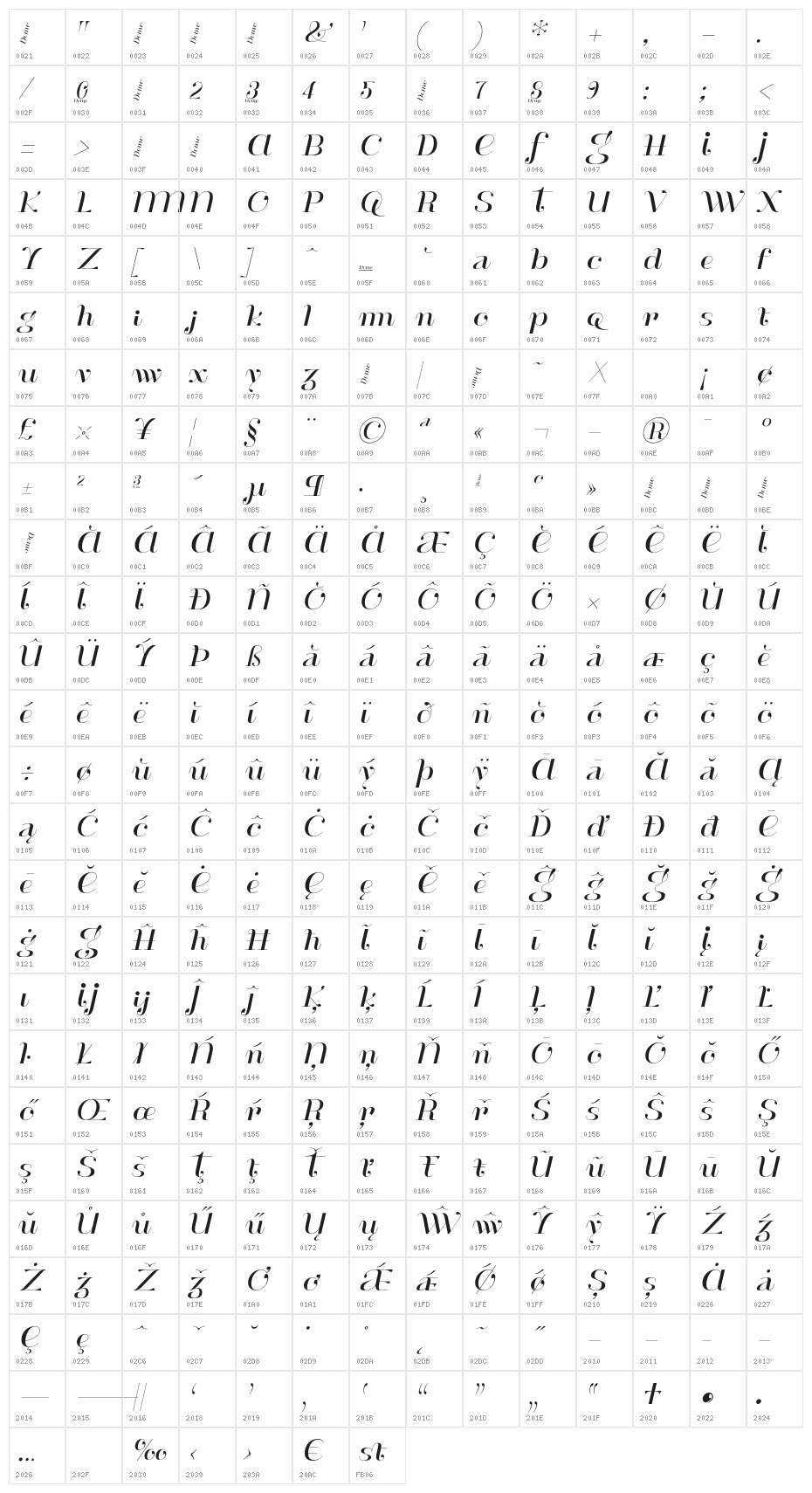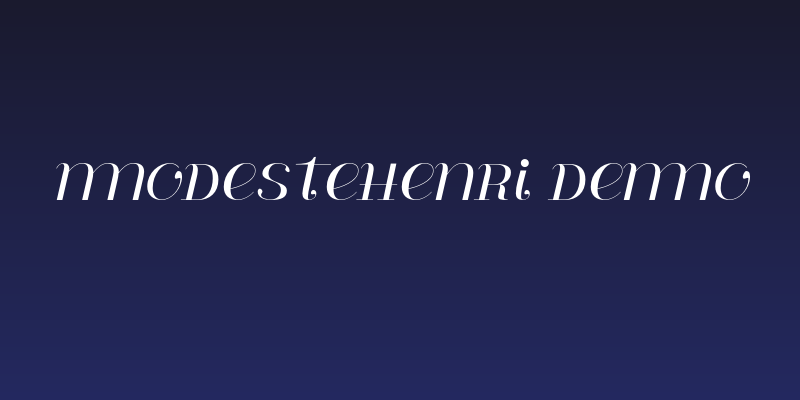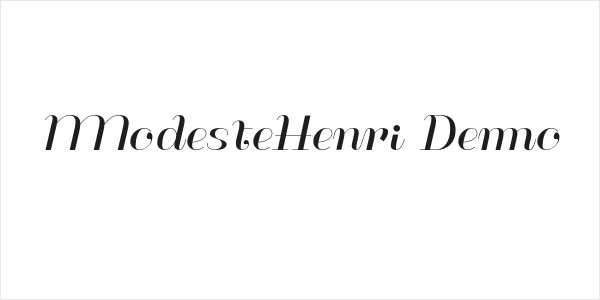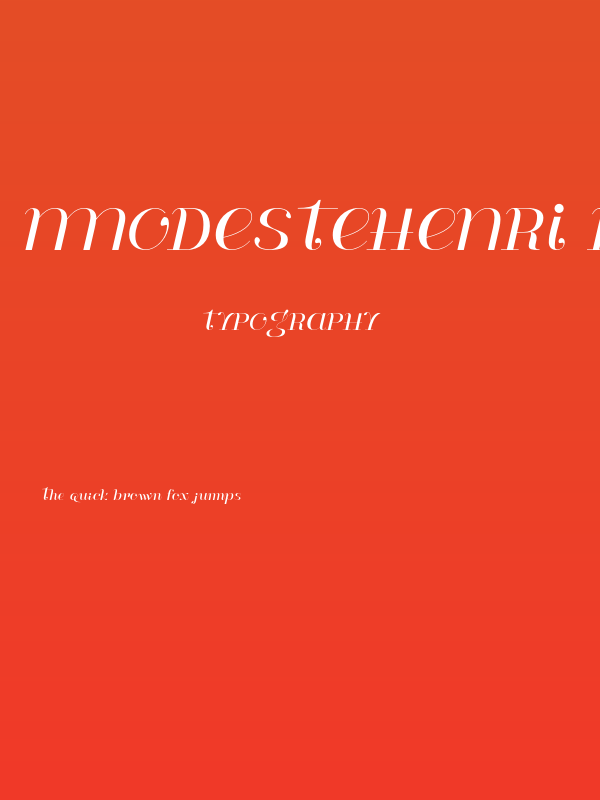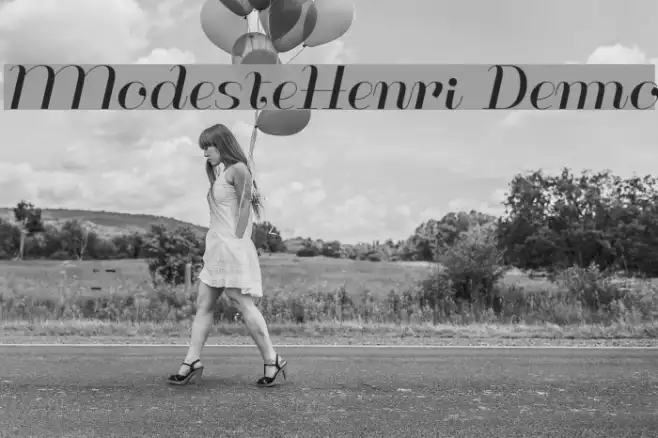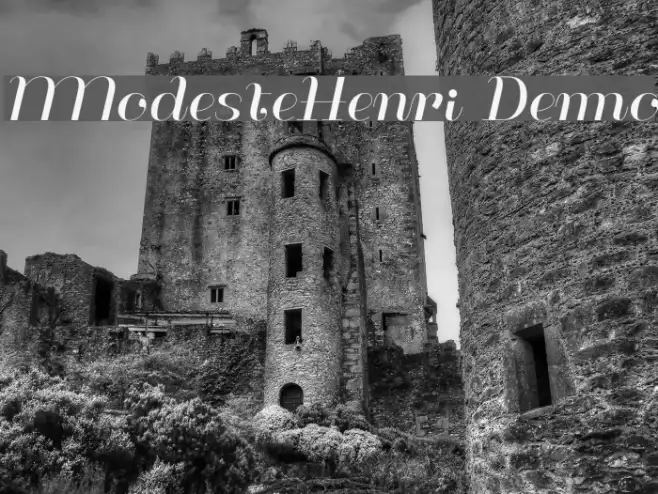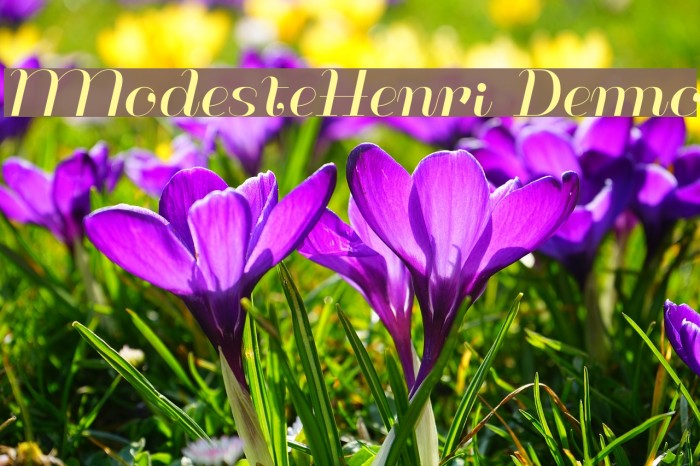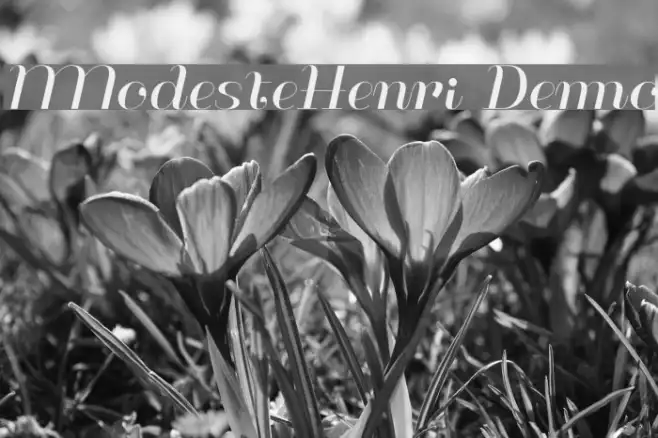
ModesteHenri Demo Font
ModesteHenri Demo Description
This font features a sophisticated and elegant script style with a modern twist. The uppercase letters are characterized by smooth, flowing curves and a slight slant, giving them a dynamic and graceful appearance. The lowercase letters maintain the same fluidity, with some characters featuring unique, decorative flourishes that add to the overall charm. The numerals are bold and stylish, complementing the letters with their distinctive shapes. Special characters are thoughtfully designed, maintaining the font's cohesive aesthetic. This font's high contrast between thick and thin strokes enhances its readability while adding a touch of luxury.
| Proposed Projects | Ideal for wedding invitations, luxury branding, elegant packaging, and high-end editorial design. |